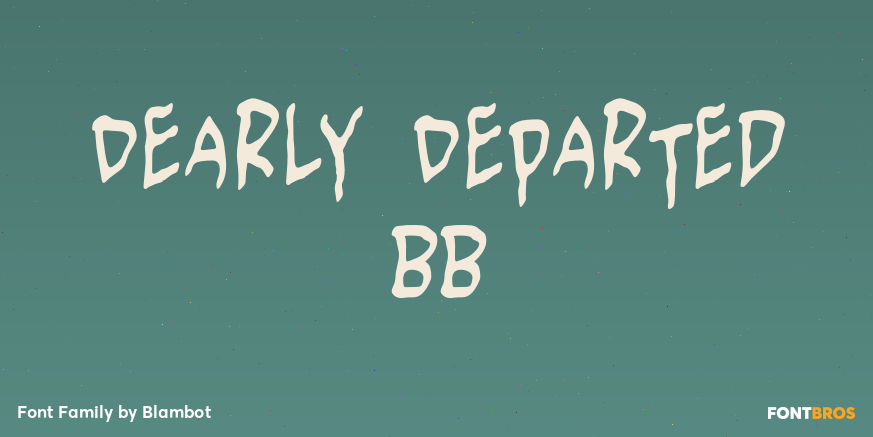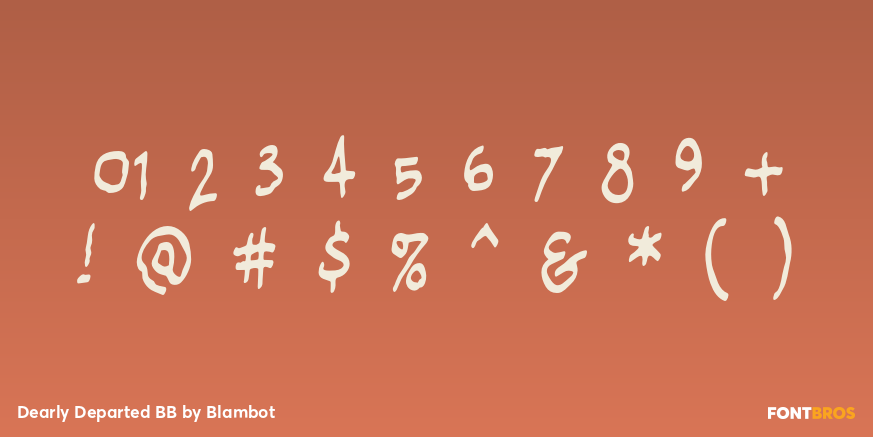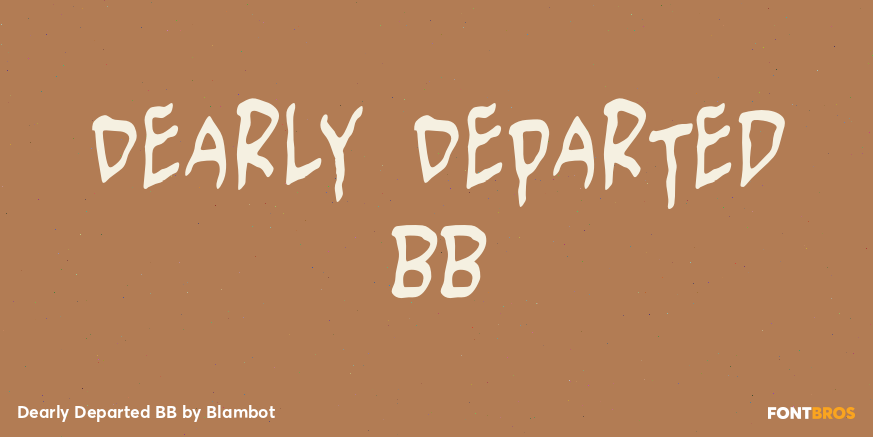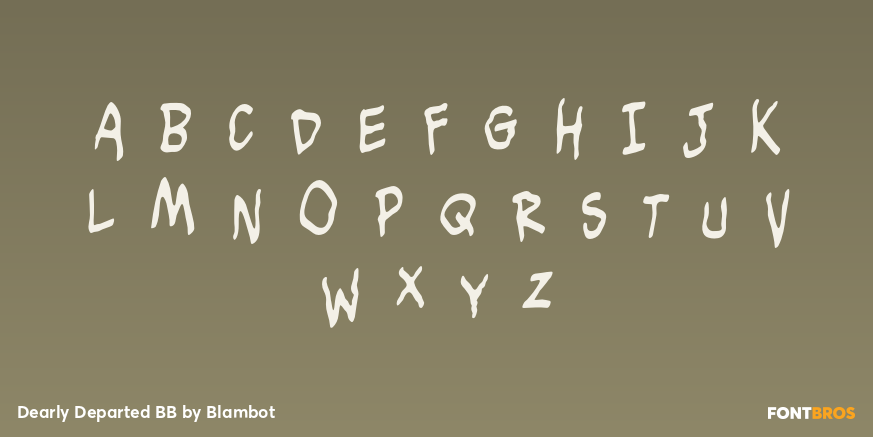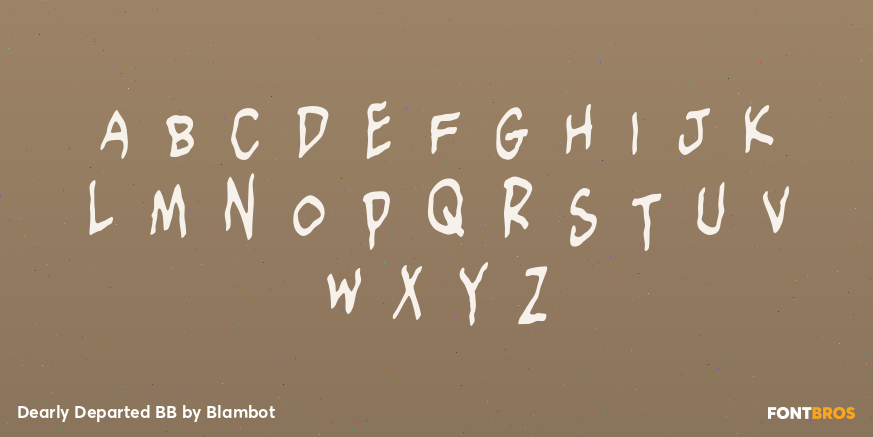
Dearly Departed BB
Font Family by Blambot
A comic book font from beyond the graaaaaave!
Dearly Departed BB comes with Regular, Italic and Bold and has more European characters than a graveyard has stiffs!
The opentype version even has Autoligatures so that consecutive letters (